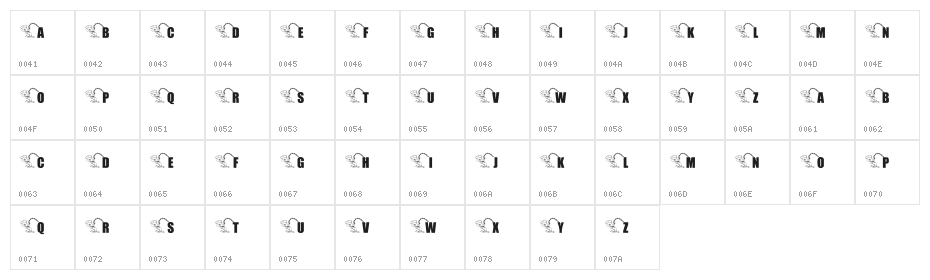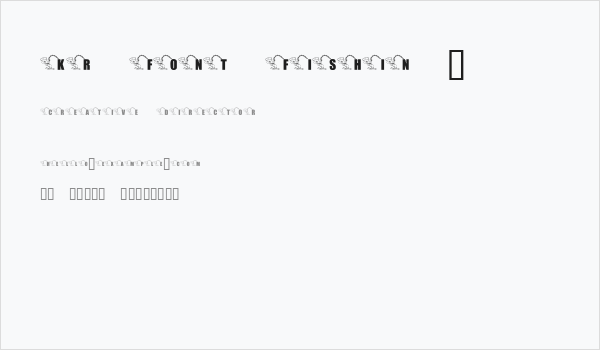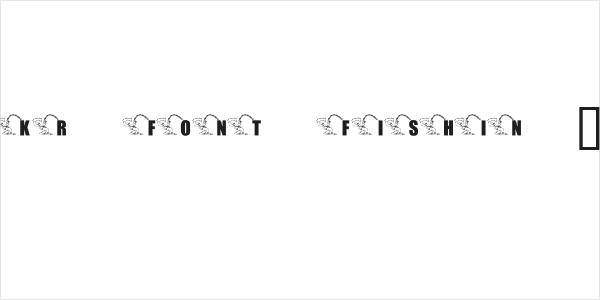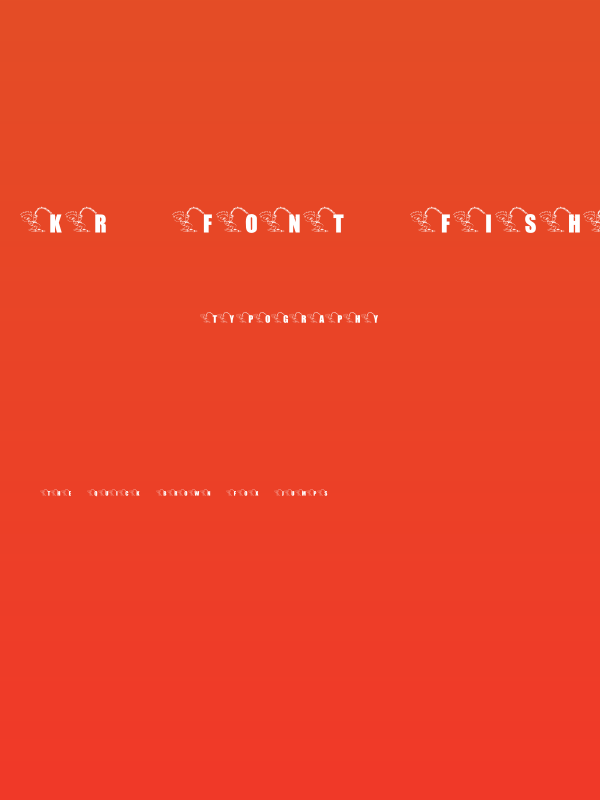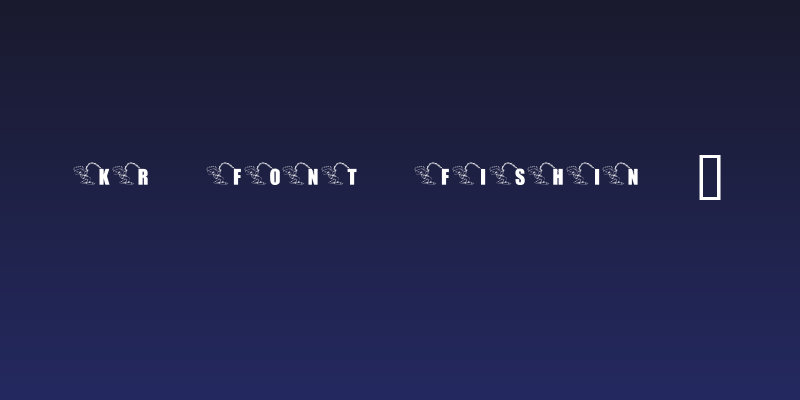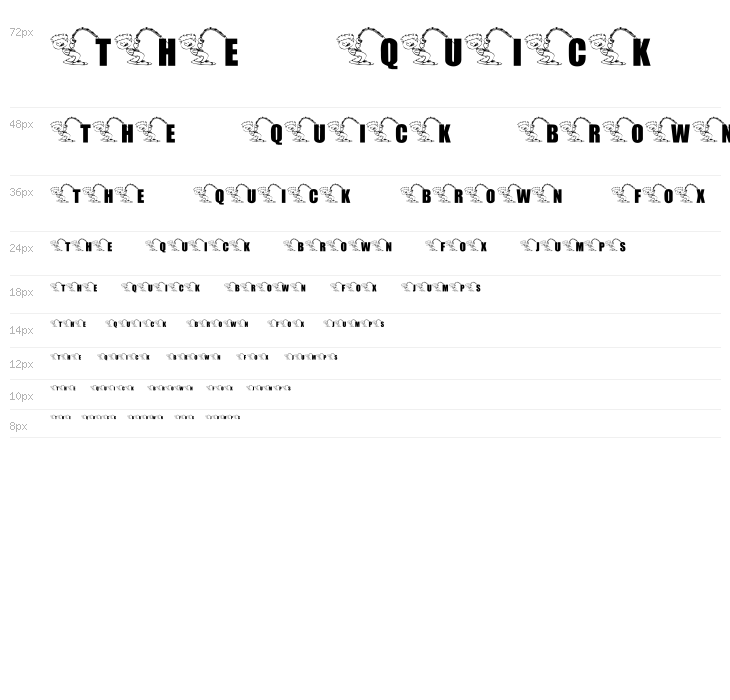
KR Font Fishin 2 Font
KR Font Fishin 2 Description
This decorative font features bold, uppercase letters with a unique fishing theme. Each character is accompanied by a detailed illustration of a fish, creating a playful and thematic design. The letters are solid and bold, providing a strong visual impact, while the fish illustrations add a whimsical touch. This font is perfect for projects that require a fun and thematic approach, especially those related to fishing or aquatic themes.
| Use Case | Headlines, Logos, Thematic designs |
| Proposed Projects | Ideal for fishing-themed posters, children's books, aquatic event invitations, or novelty merchandise. |